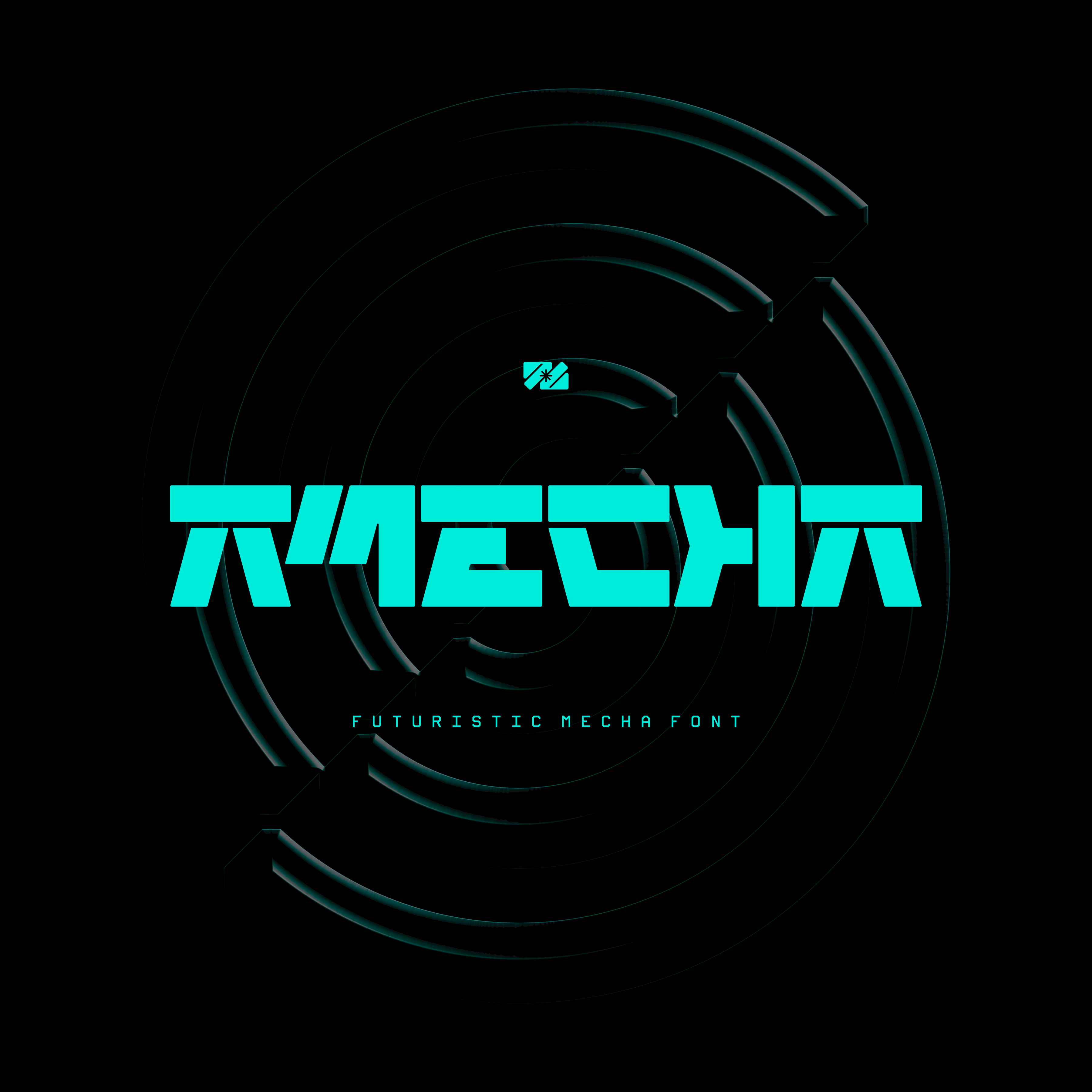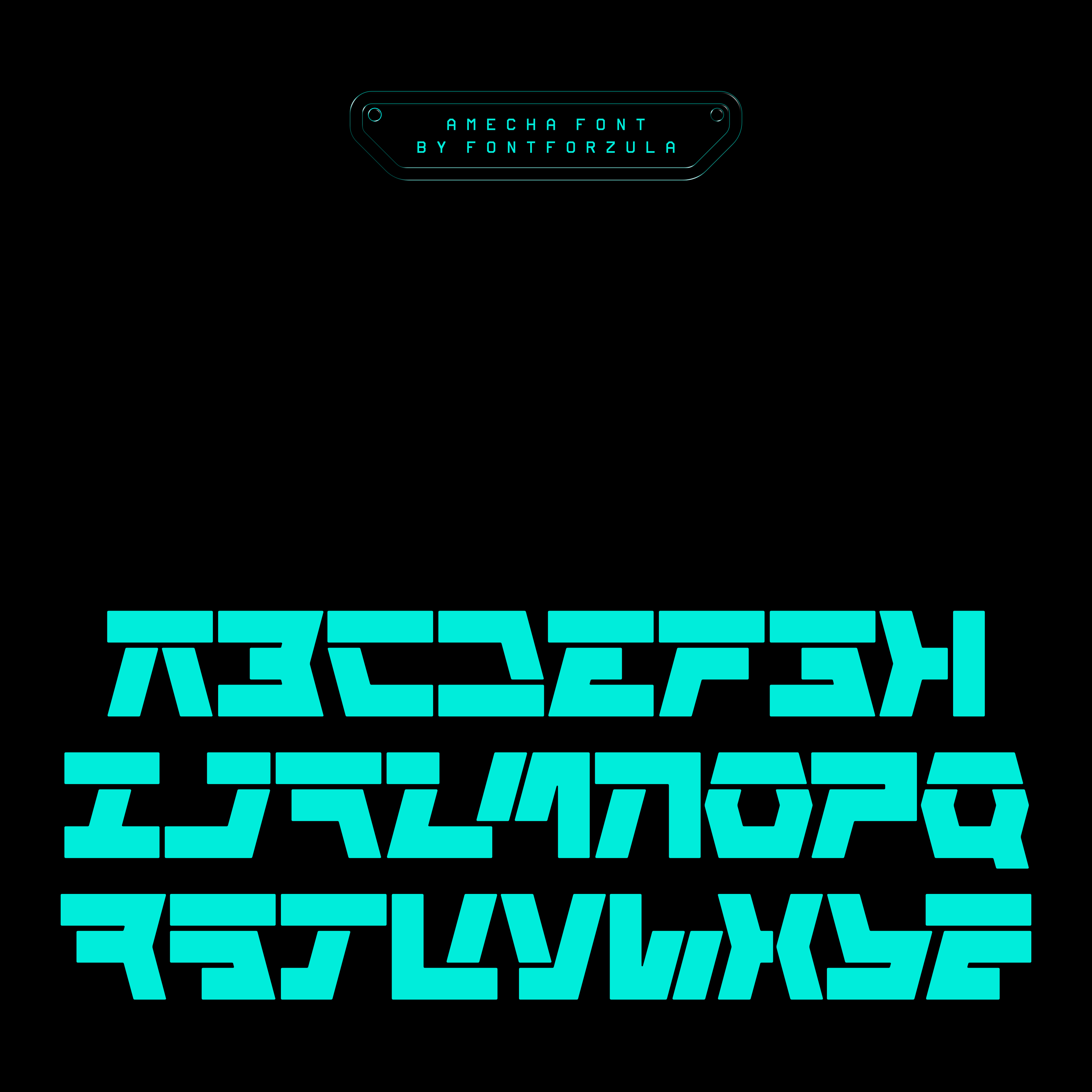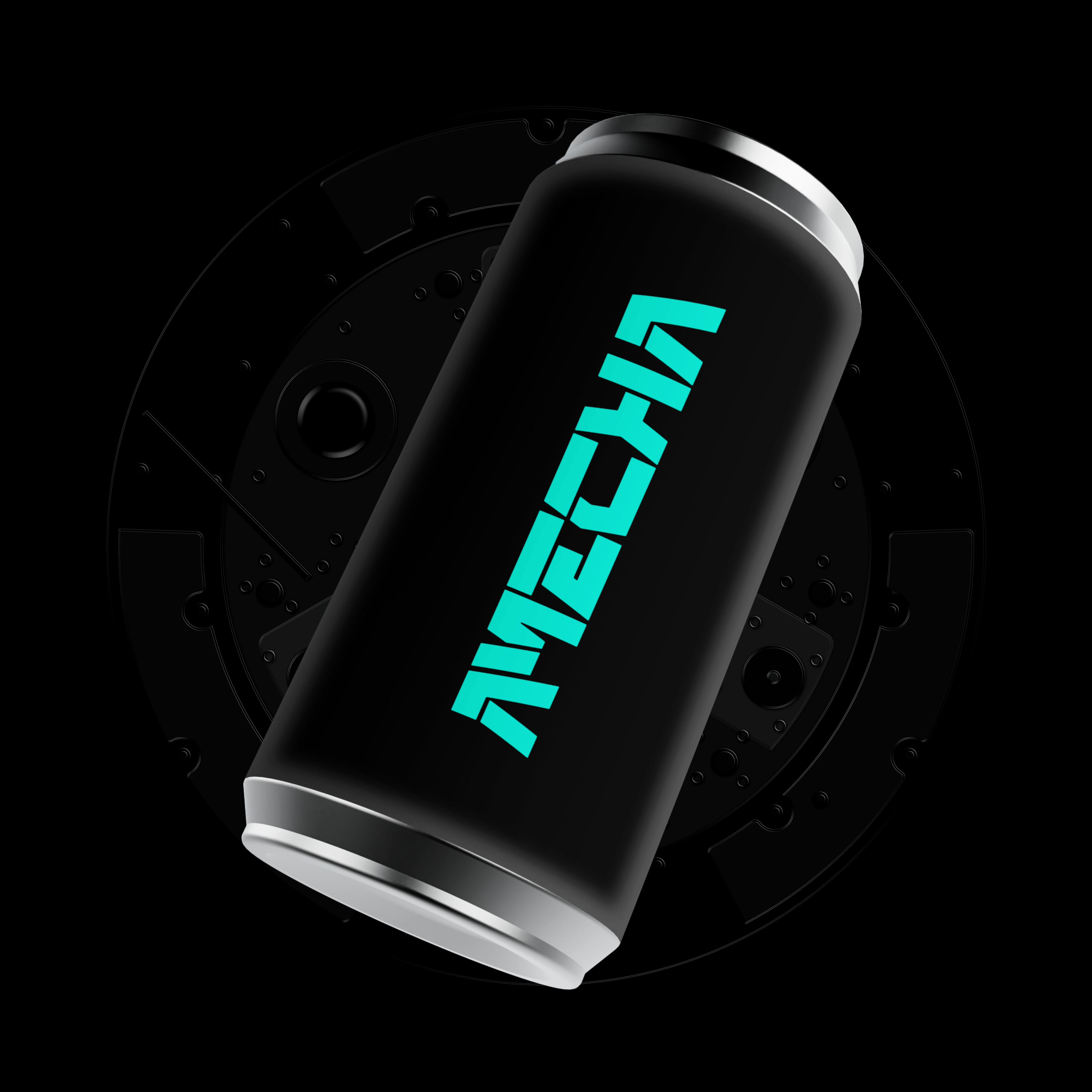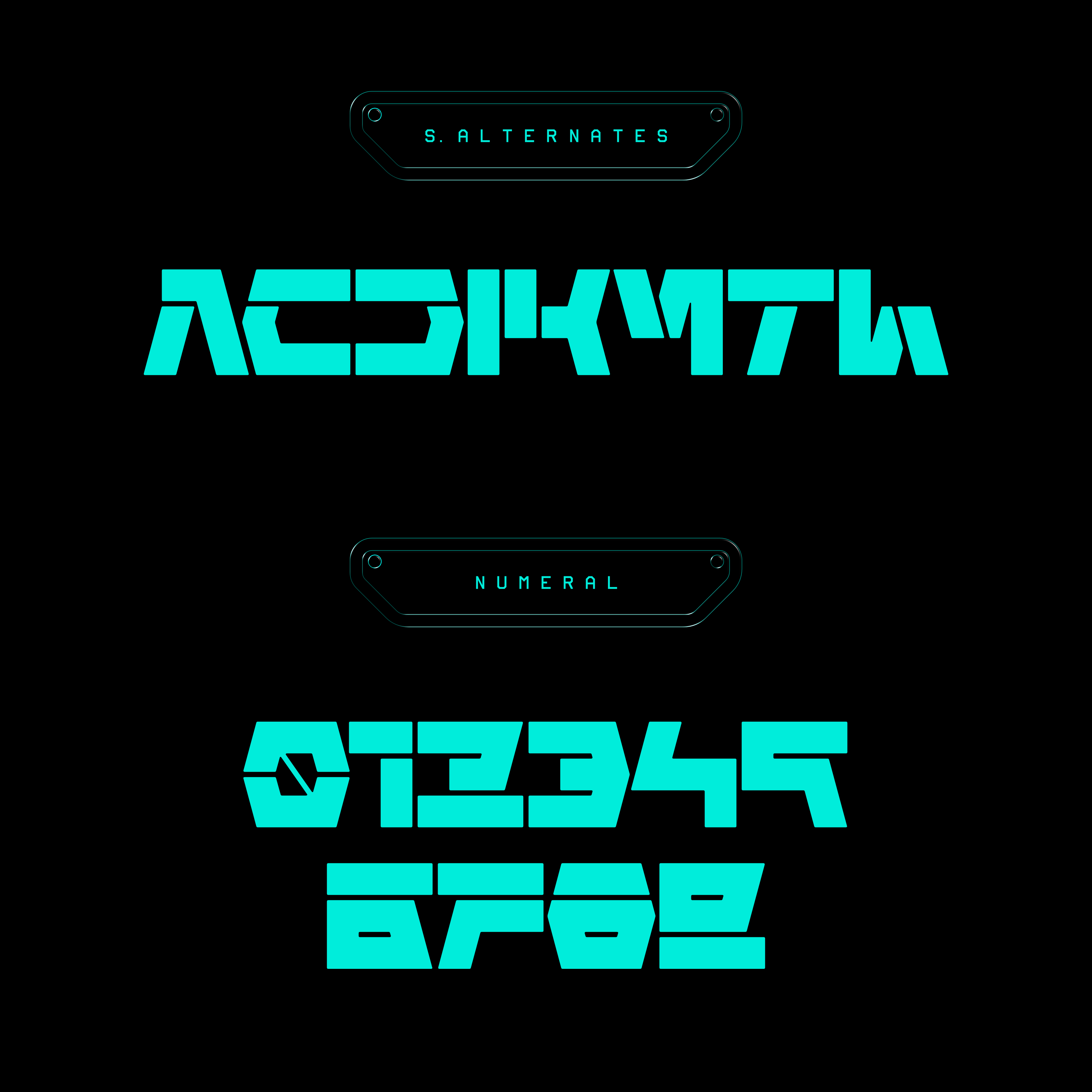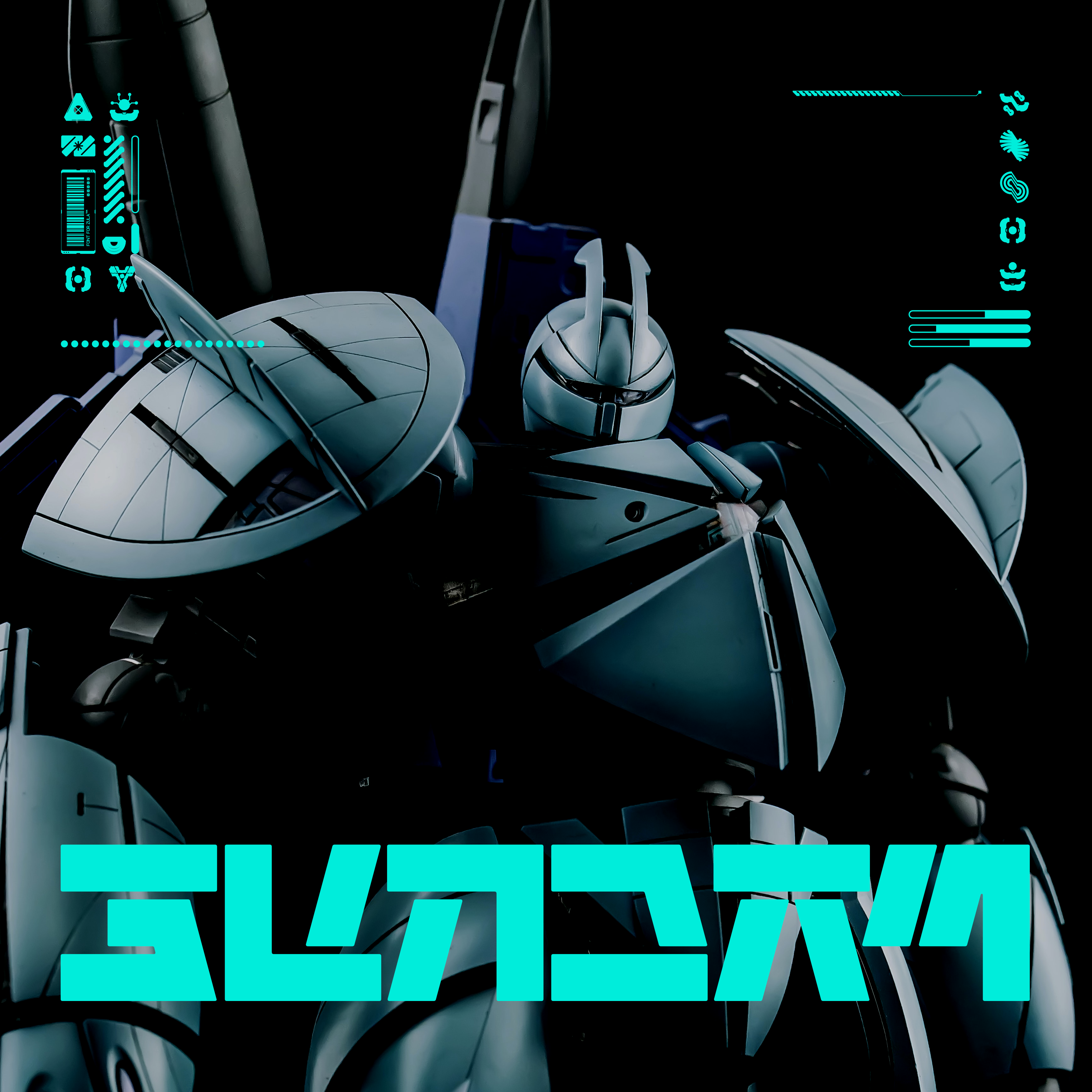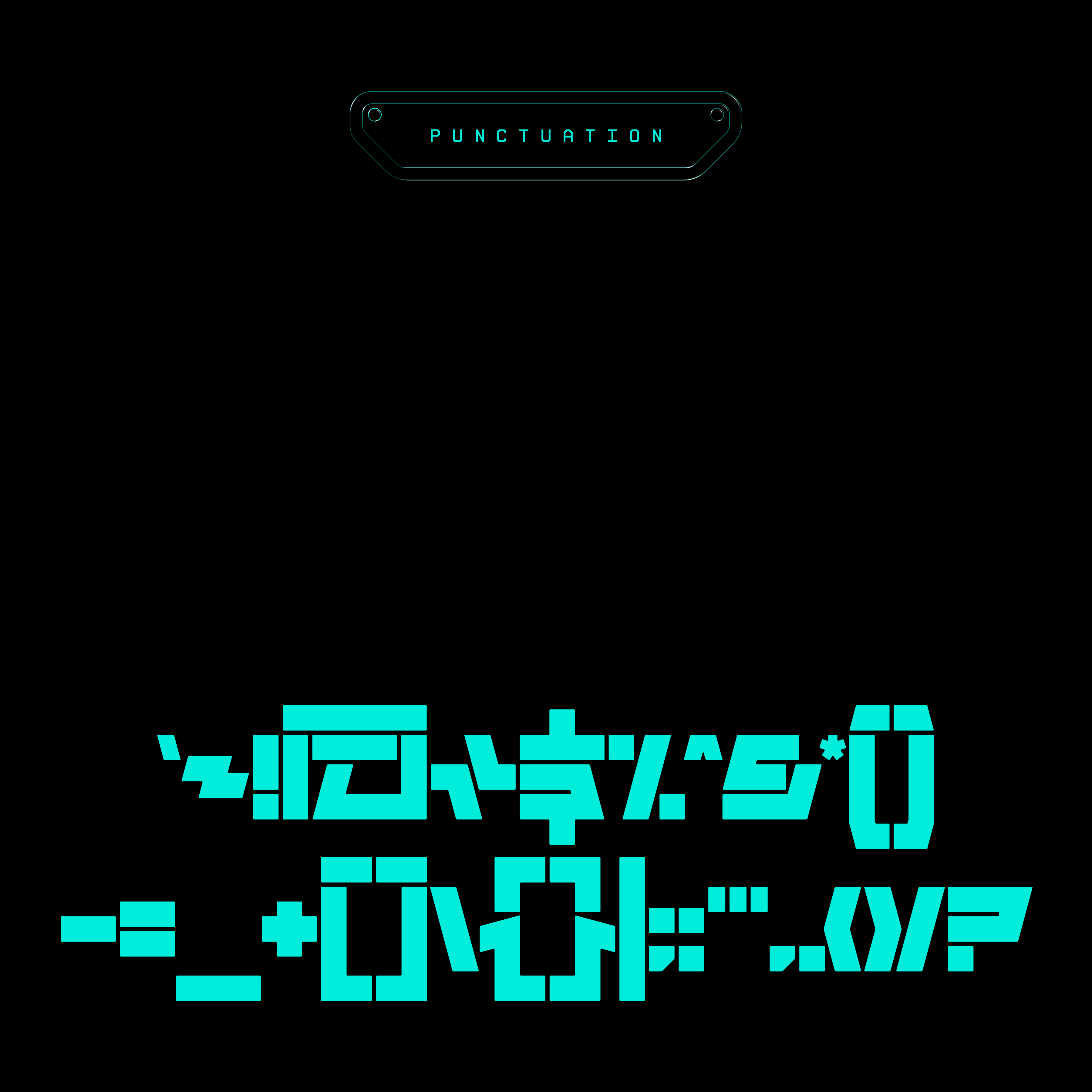
AMECHA Typeface
This typeface embodies a strong sense of futurism and modernity. It proves ideal for a myriad of applications, including brands, logos, posters, apparel, and beyond.